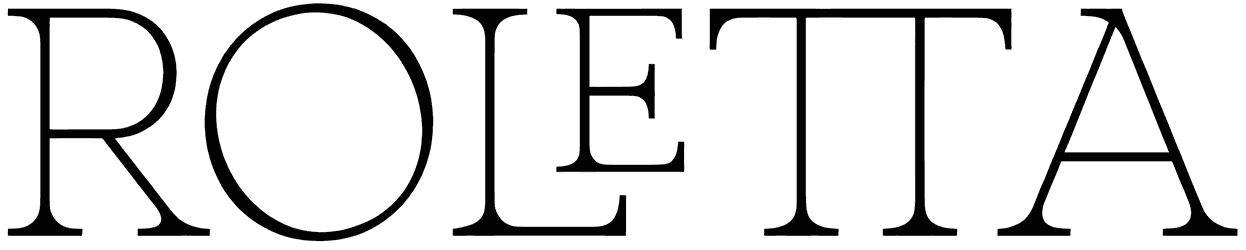
Rosha Keylin Font
This serif font provides you with a great chance to give a classic and stylish visual to your upcoming project. The letters of the Rosha Keylin font are elegant and noble, and you have them all. Put this basic font on your new layout of a business card for a manager or other projects, and show off your special taste.
Designed by: Storytype Studio